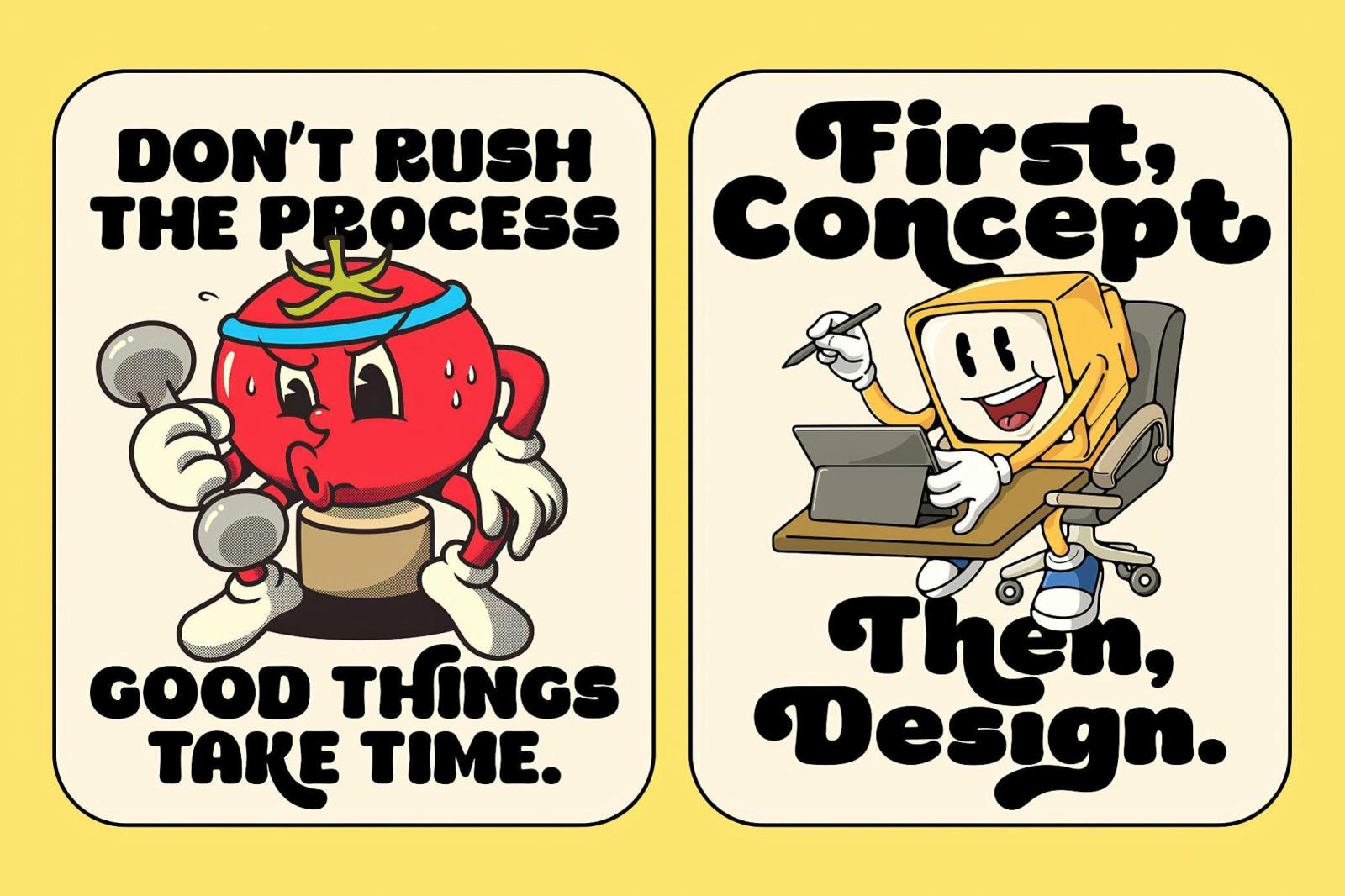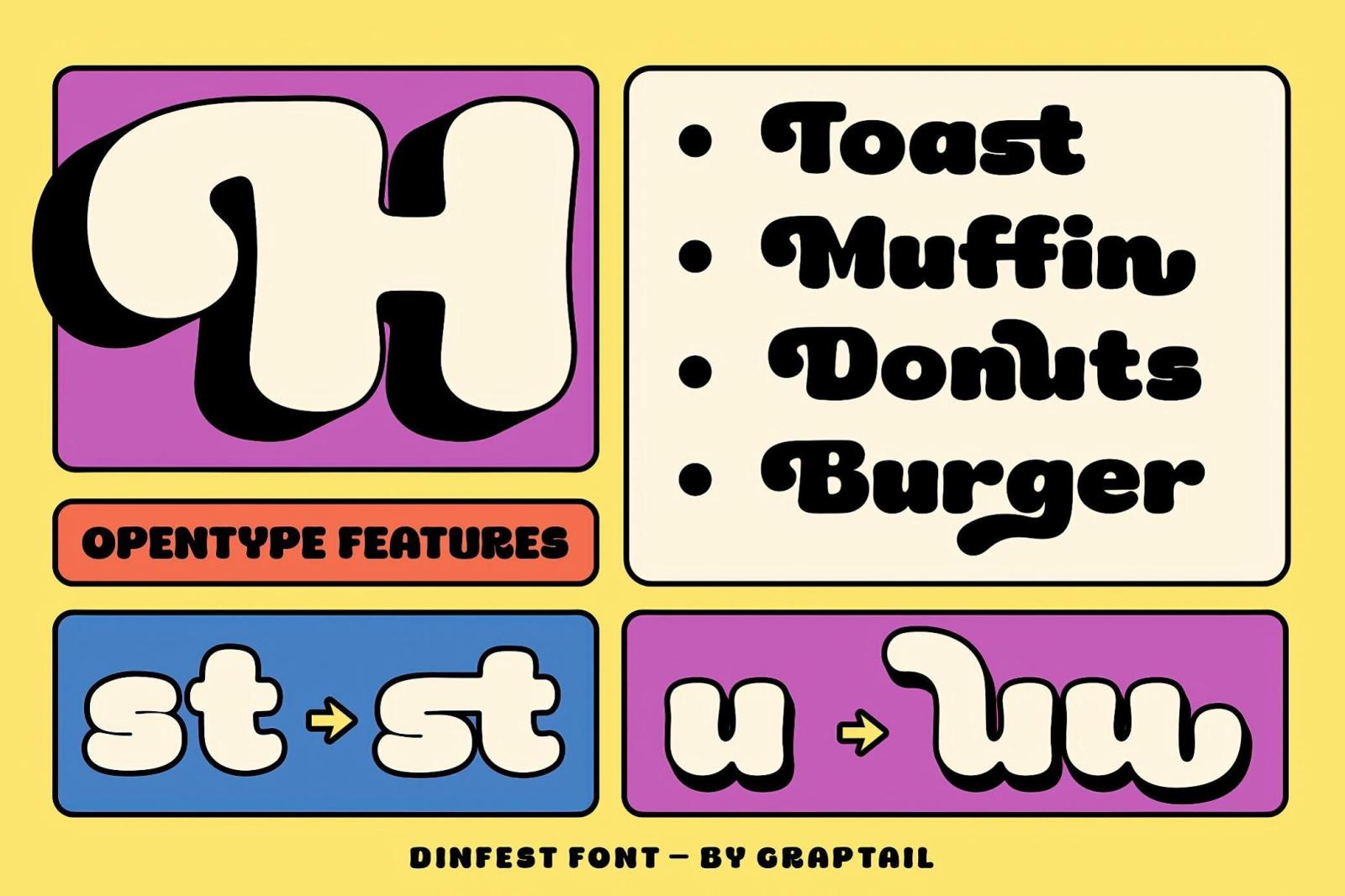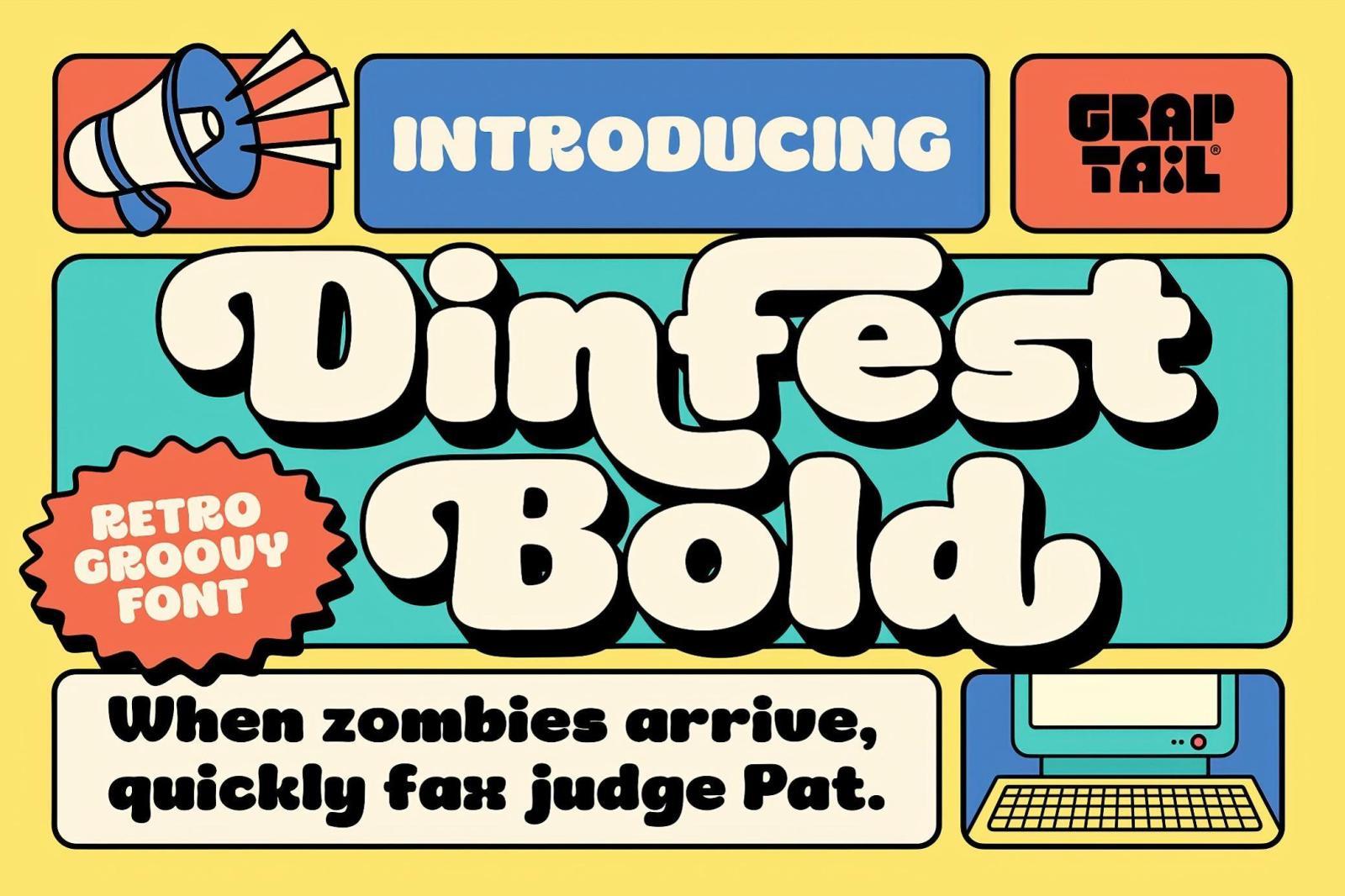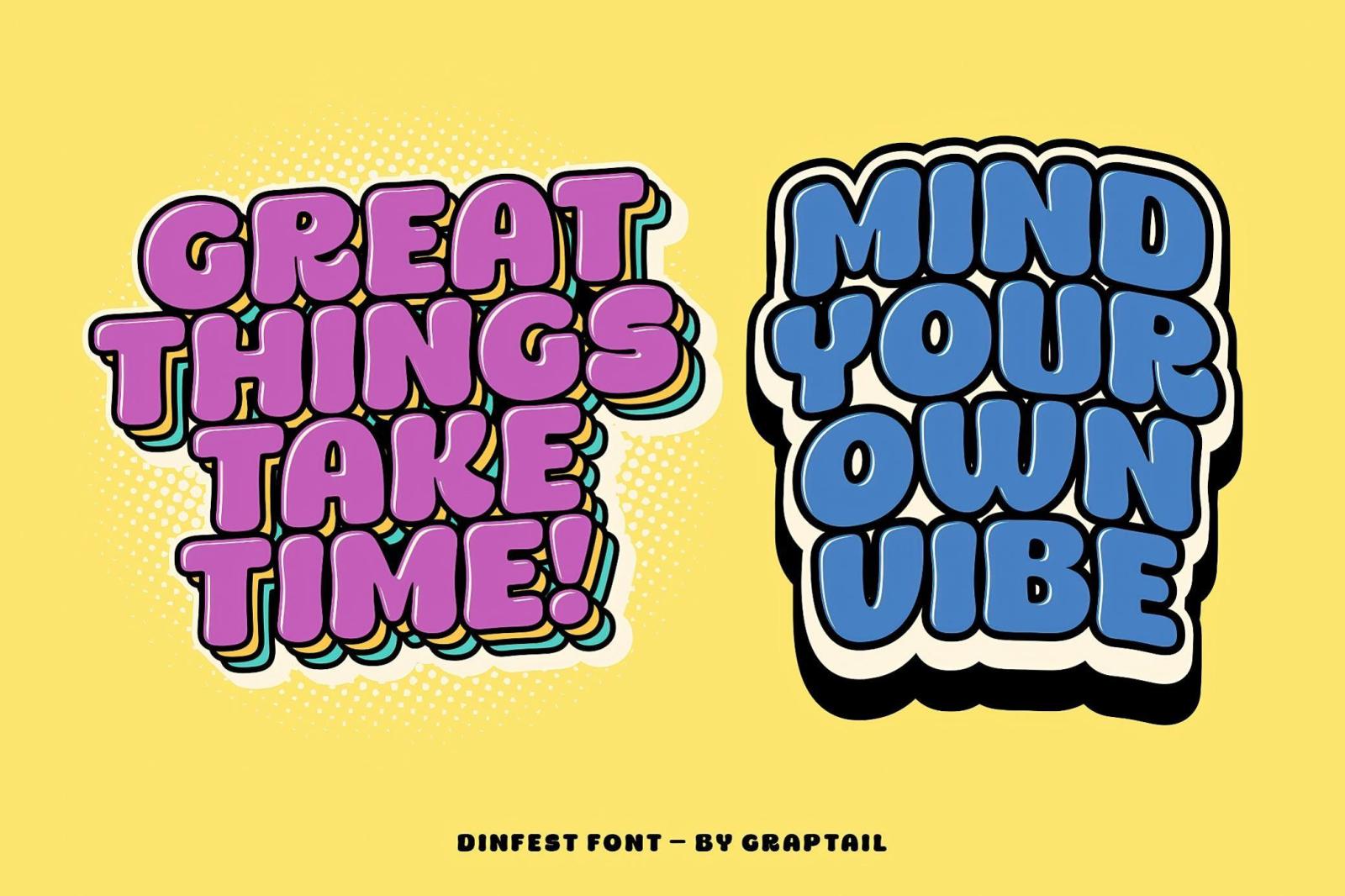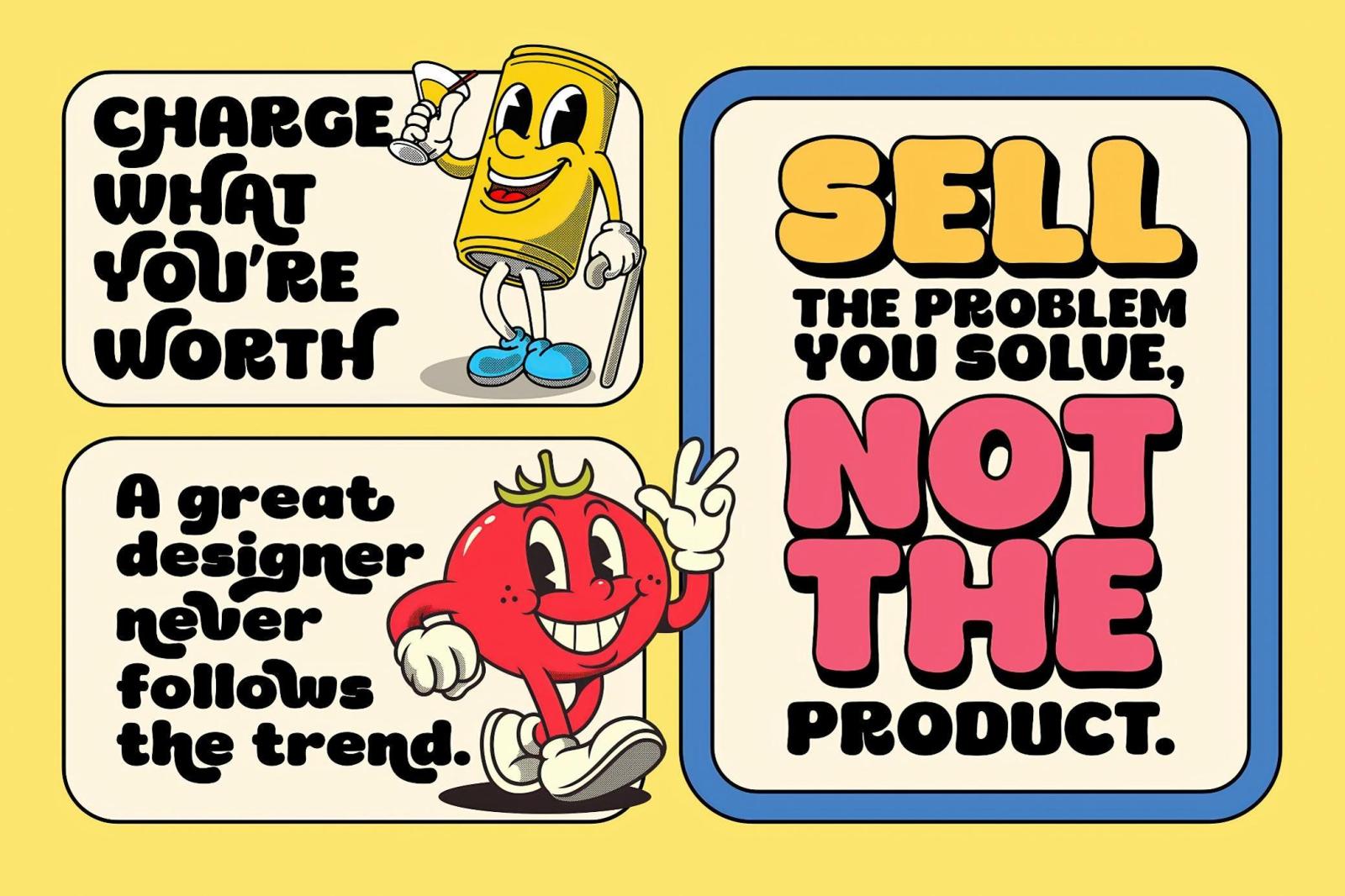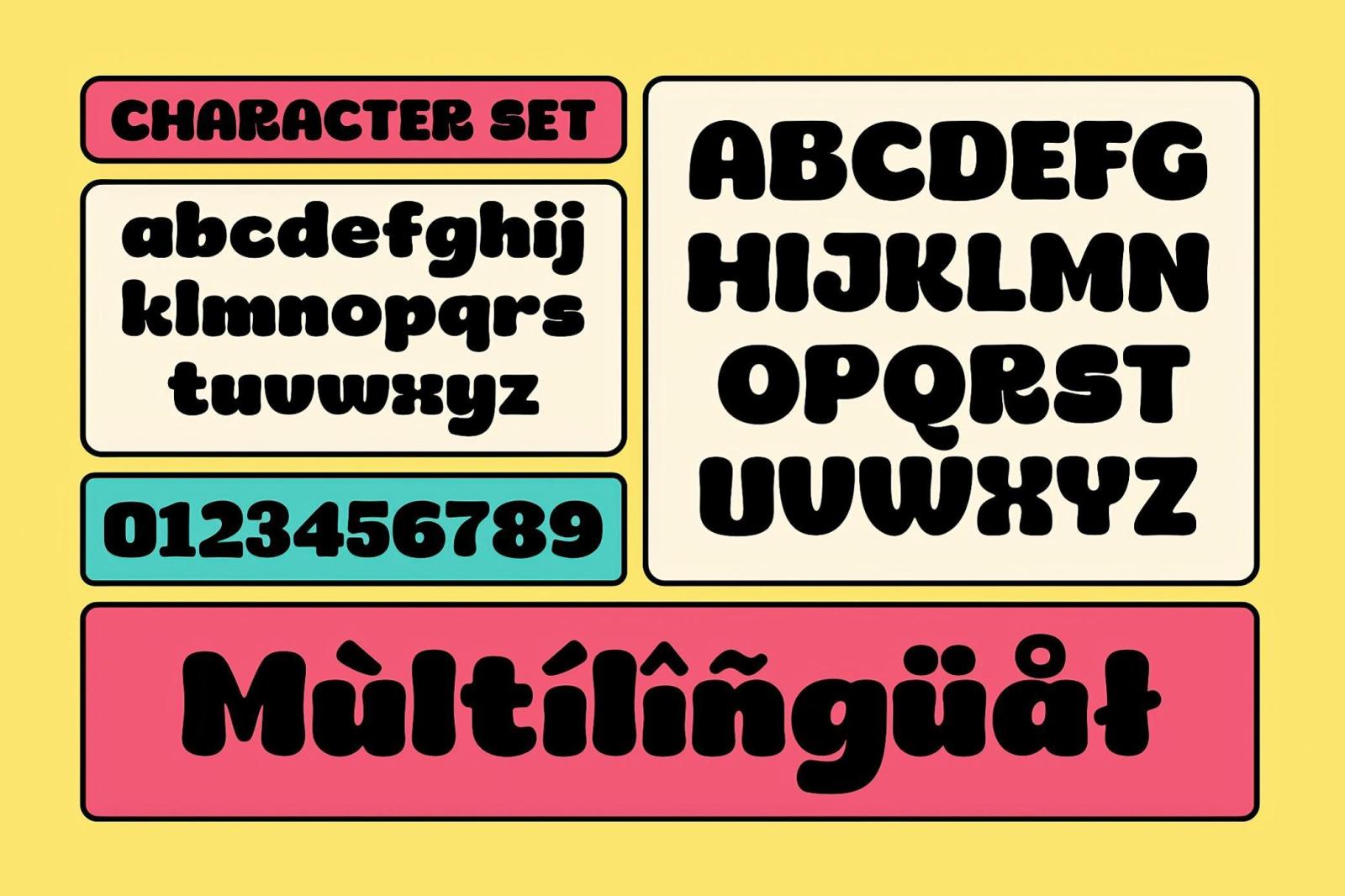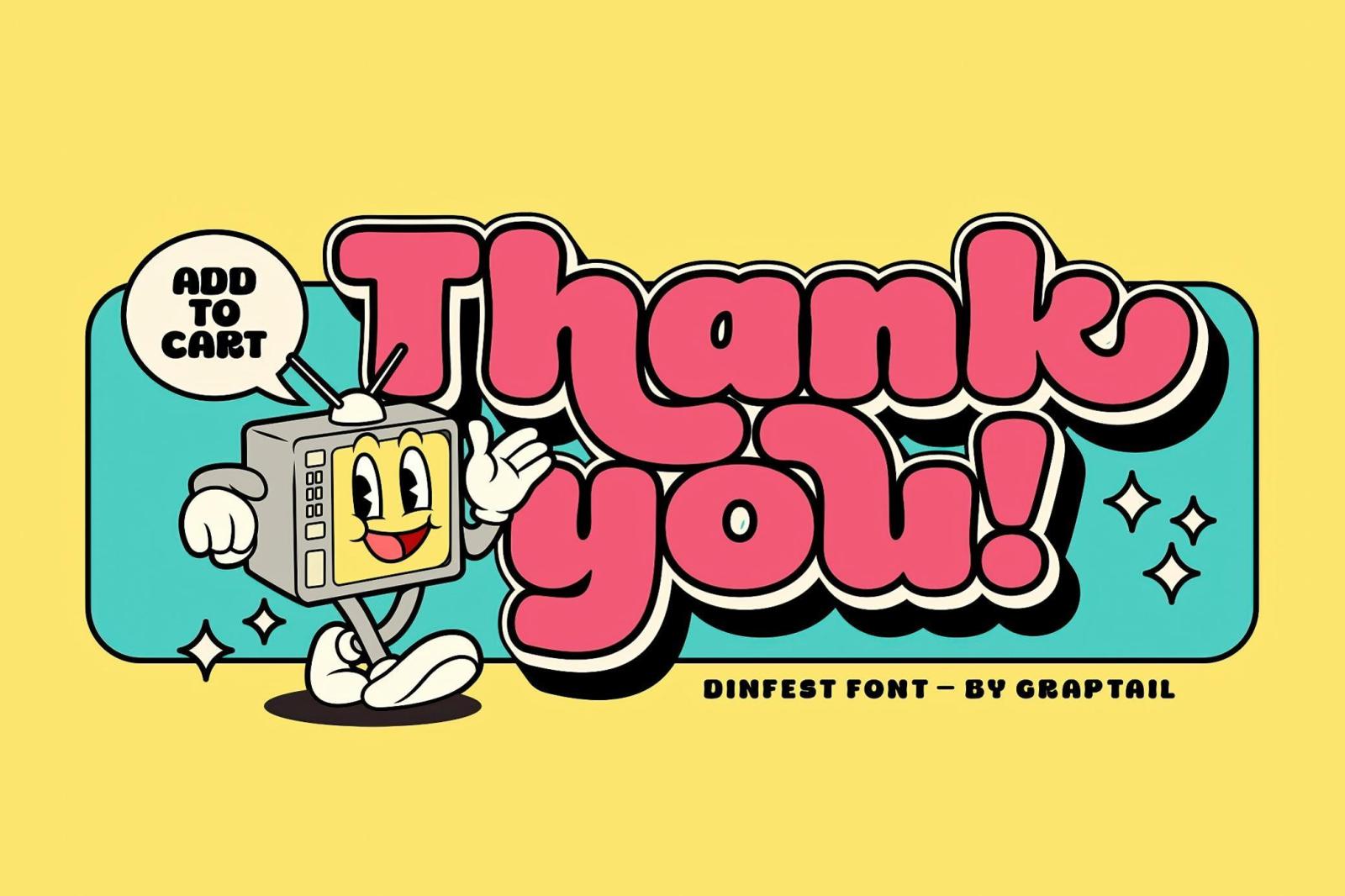
Dinfest Bold — Retro Font
The 70s typography has so many faces, and Dinfest Bold is for sure one of the catchiest. Its thick, rounded letterforms are infused with a playful charm, arousing nostalgia for old-school advertising, posters, and packaging. The font’s robust structure features clean curves and uniform weights, giving it a strong presence while maintaining a soft, approachable look. Dinfest has a complete character set, multilingual support, and various alternates and ligatures, accessible via any app that supports OpenType features.